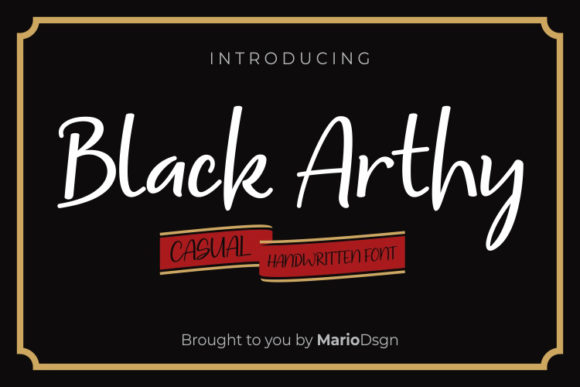
Discover the Charm of Black Arthy Font: Elevate Your Designs with a Simple yet Stunning Handwritten Style
In the world of typography, fonts play a crucial role in conveying the tone and personality of a brand or design. Among the numerous font styles available, handwritten fonts have gained immense popularity for their unique and personal touch. One such font that has caught the attention of designers and artists is the Black Arthy Font. In this article, we’ll explore the features, benefits, and uses of Black Arthy, a simple and casual handwritten font that can elevate your creative projects to the next level.
What is Black Arthy Font?
Black Arthy is a beautiful, handwritten font designed to add a personal and casual touch to your designs. Its simplicity and elegance make it an excellent choice for a wide range of creative projects, from logos and branding to wedding invitations, flyers, and magazine headlines.
The font’s unique characteristics include:
- Handwritten style with a natural, fluid feel
- Simple and casual, yet elegant and sophisticated
- Perfect for designs that require a personal touch
Key Features of Black Arthy Font
Black Arthy boasts several key features that make it an attractive choice for designers:
- Legibility: The font is highly legible, making it suitable for use in various design applications, from body text to headlines.
- Versatility: Black Arthy can be used in a wide range of creative projects, including logos, branding, wedding invitations, flyers, brochures, and more.
- Elegance: The font’s simple yet elegant design ensures that your designs look sophisticated and professional.
- Uniqueness: Black Arthy’s handwritten style sets it apart from more traditional fonts, giving your designs a distinctive look.
Uses of Black Arthy Font
The versatility of Black Arthy makes it suitable for a wide range of design applications:
- Logo and Branding: Create a unique and memorable logo for your brand with Black Arthy.
- Wedding Invitations: Add a personal touch to your wedding invitations with this beautiful handwritten font.
- Flyers and Brochures: Use Black Arthy to create eye-catching headlines and titles for your marketing materials.
- Magazine Headlines: Add a touch of elegance to your magazine headlines with Black Arthy.
- Label and Packaging Design: Use Black Arthy to create labels and packaging designs that stand out.
Benefits of Using Black Arthy Font
By incorporating Black Arthy into your designs, you can enjoy several benefits:
- Enhanced Creativity: Black Arthy’s unique style can inspire creativity and help you create designs that stand out.
- Professional Look: The font’s elegance and sophistication ensure that your designs look professional and polished.
- Time-Saving: With Black Arthy, you can create stunning designs quickly and efficiently, saving you time and effort.
- Versatility: The font’s versatility means you can use it in a wide range of design applications, reducing the need for multiple fonts.
Tips for Using Black Arthy Font Effectively
To get the most out of Black Arthy, follow these tips:
- Pair with Other Fonts: Combine Black Arthy with other fonts to create a unique and visually appealing design.
- Experiment with Colors: Try out different colors to find the perfect match for your design.
- Use for Headlines and Titles: Black Arthy is perfect for headlines and titles, so use it to create eye-catching text.
- Keep it Simple: Don’t overcomplicate your design – keep it simple and let Black Arthy shine.
Black Arthy is a simple yet stunning handwritten font that can elevate your creative projects to the next level. Its elegance, sophistication, and versatility make it an excellent choice for designers and artists looking to add a personal touch to their designs. With its wide range of uses and benefits, Black Arthy is sure to become a favorite in your font collection.